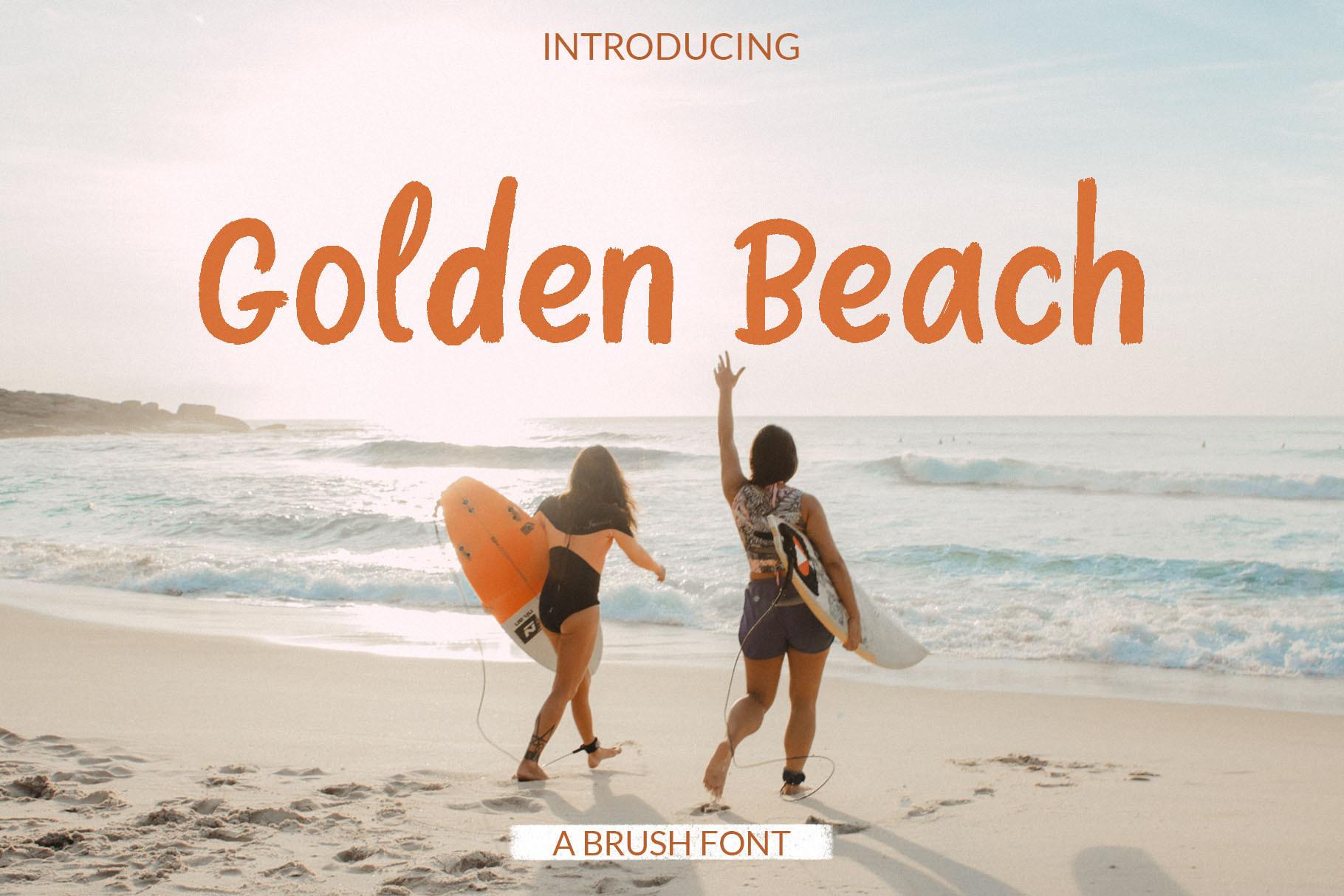
Golden Beach is a cool, paint brushed display font. It has a modern yet whimsical style and it will undoubtedly immerse your designs into a magical world.